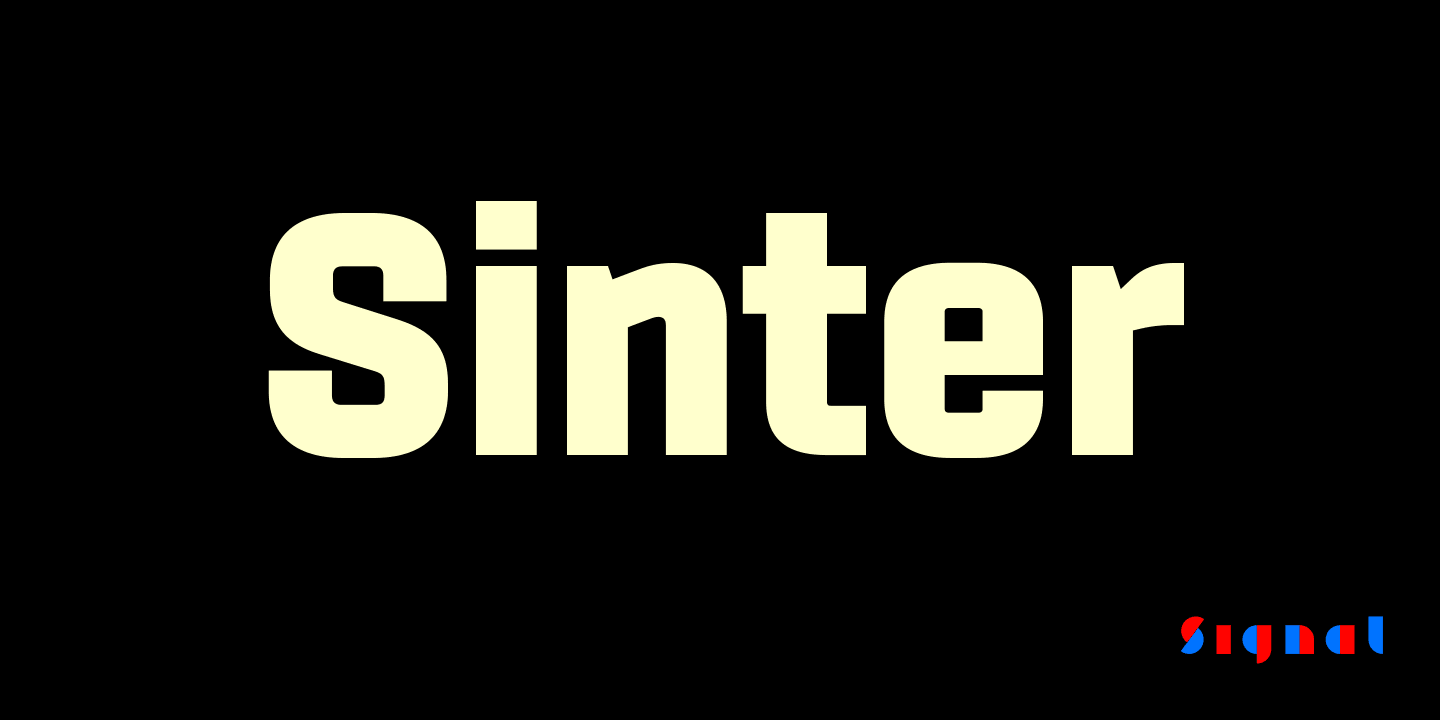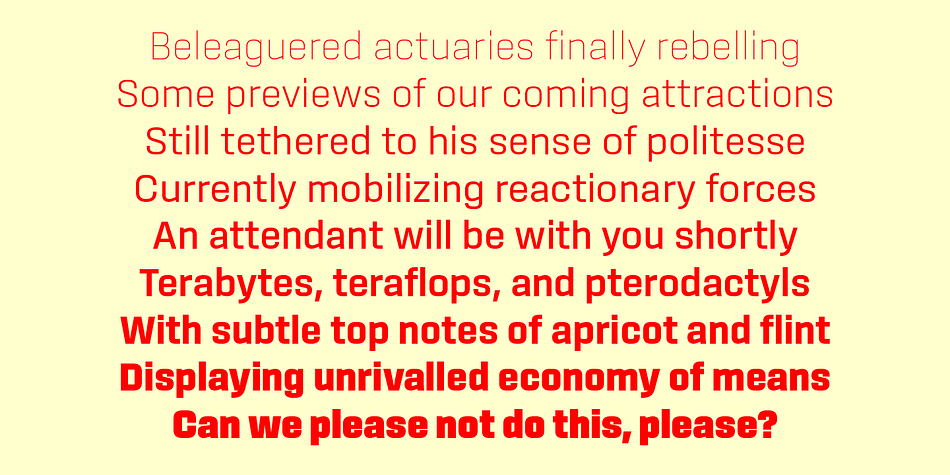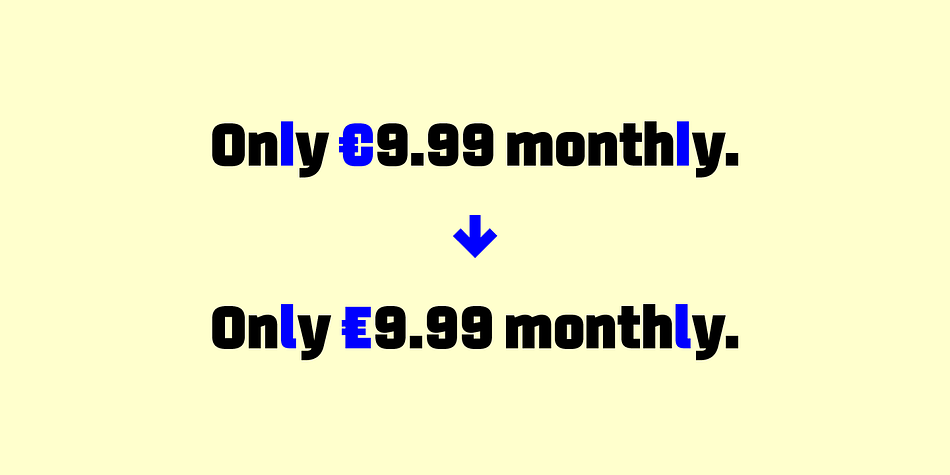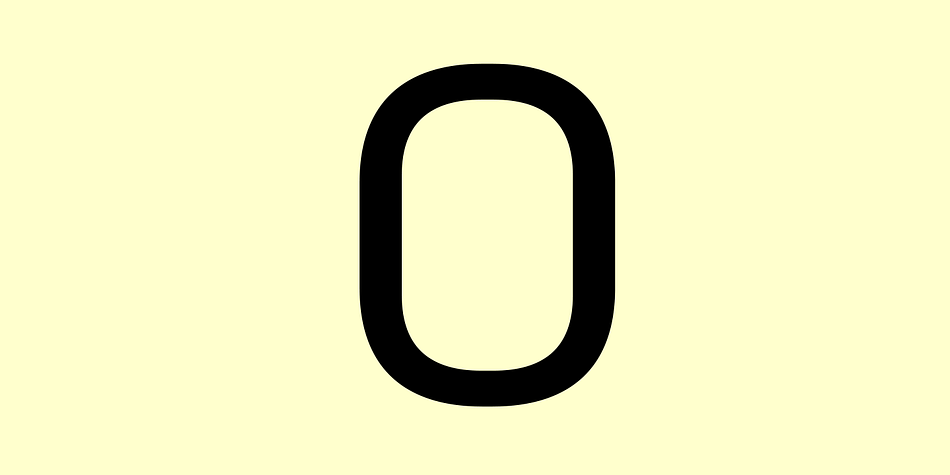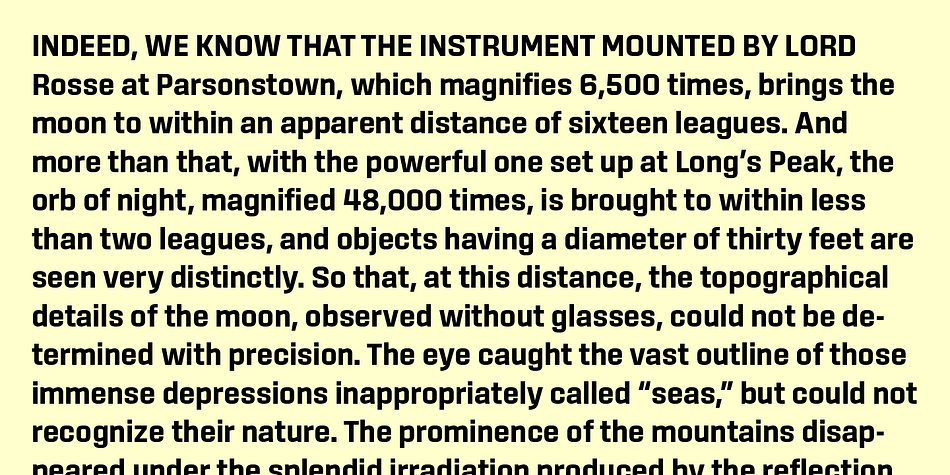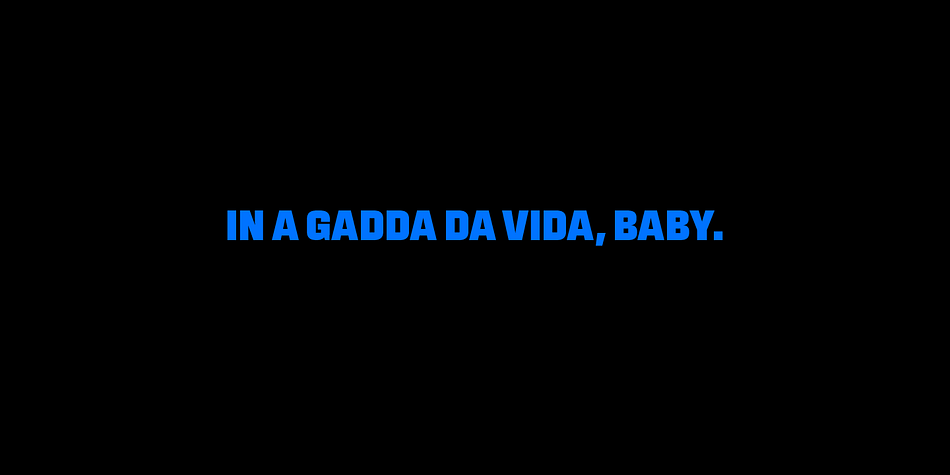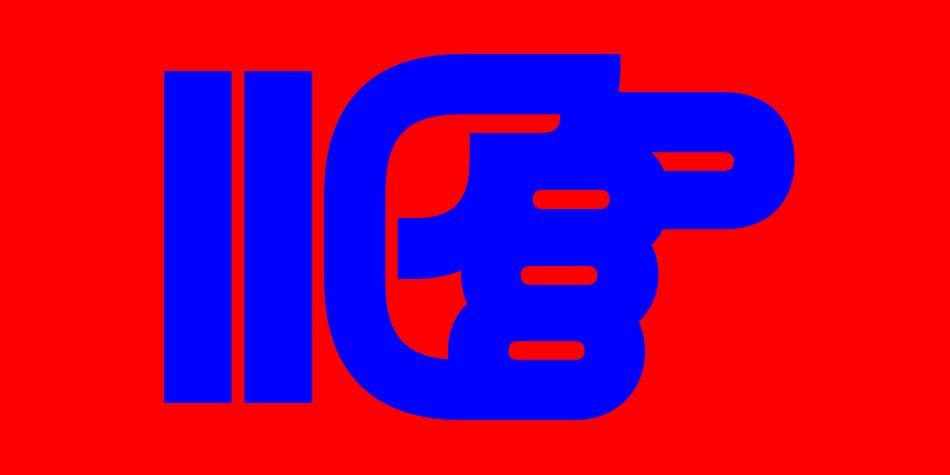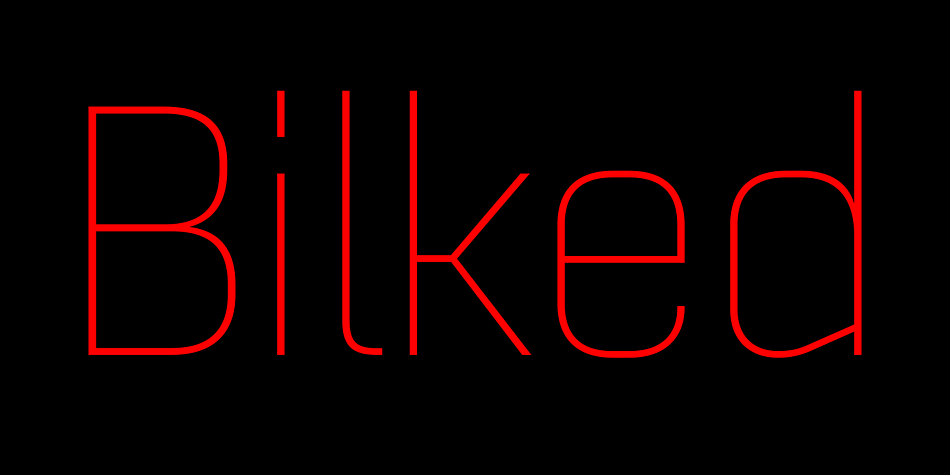
Designed by Max Phillips, Sinter is a sans serif font family. This typeface has eighteen styles and was published by Signal Type Foundry.
The future is squarish. Georg Trump knew it in 1930 when he designed City. Hermann Zapf knew it in 1952 when he designed Melior. Aldo Novarese knew it in 1962 when he designed Eurostile. Sinter isn’t about to argue. Based on a rounded rectangle, its geometry has been subtly refined for smoother reading. Its branches are angled in homage to OCR-A. A combination of open counters, unequivocal curves, and ruler-straight vertical and horizontal strokes suit it admirably for onscreen display. Sinter’s nine weights range from a waifish Thin to a hulking Ultra, each with a matching italic. It features tabular figures duplexed across all weights, case-sensitive punctuation, and support for over 130 languages.